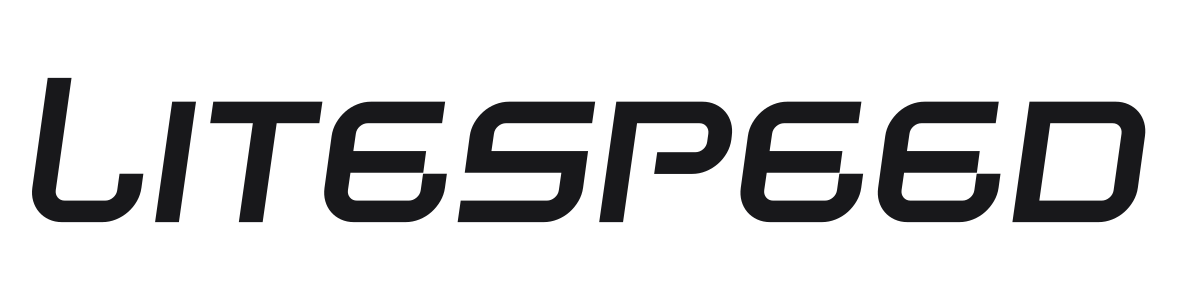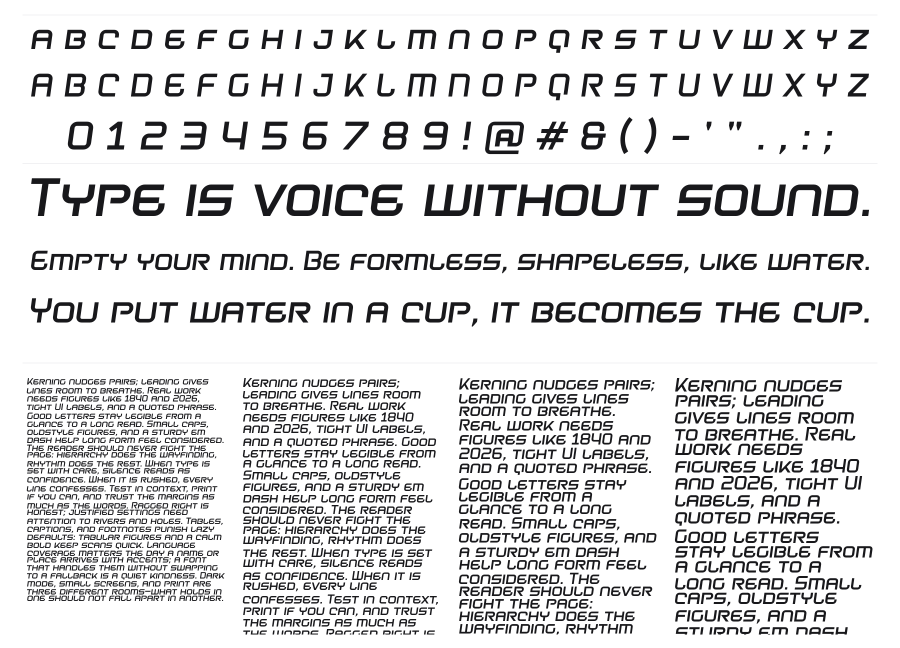
Litespeed
Litespeed is a futuristic geometric sans built for impact at large sizes, with bold proportions and precise mechanical terminals that read as engineered rather than drawn. The clipped angles and near-monoweight strokes give it a convincing sci-fi authority without resorting to clichéd LCD or pixel tricks. It comes in Bold and Bold Italic, the latter leaning forward with the kind of urgency that suits automotive, gaming, and tech branding.